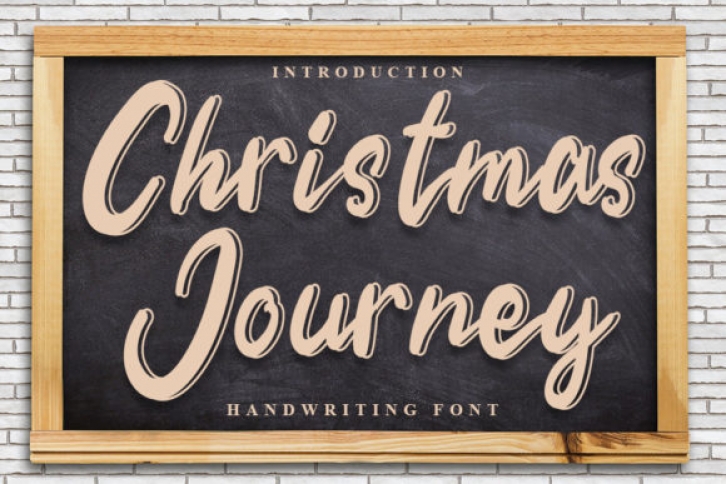
Christmas Journey is a stylish and flowing handwritten font. Friendly and incredibly unique, this font will be the ideal choice for a wide variety of designs.